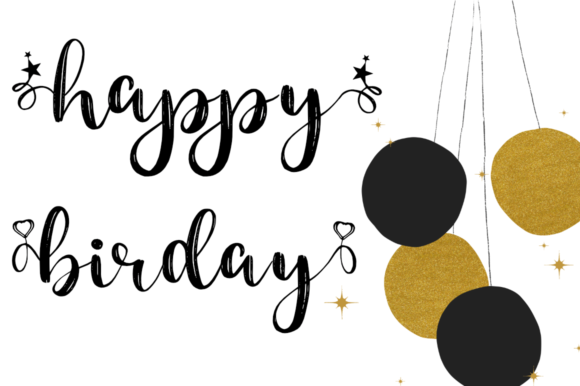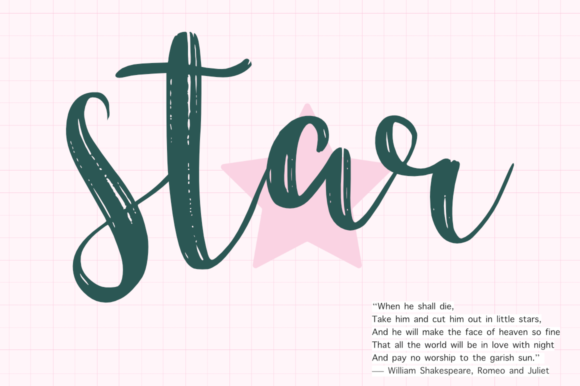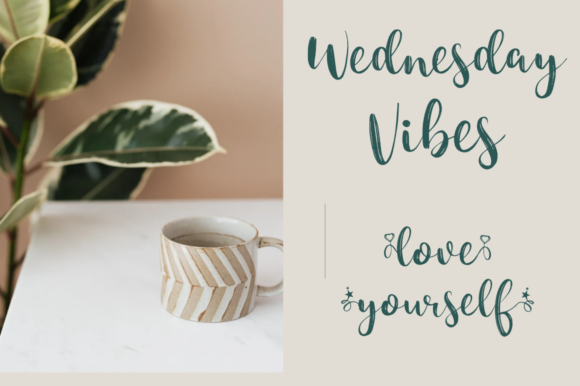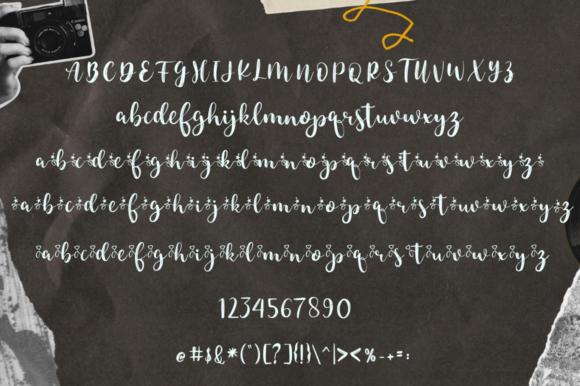
About Qashim Font
Qashim is a stylish and brushed script font. It is suitable for any projects such as: logos, branding projects, label, photography, watermark, special events, and all your other lovely projects that need a beautiful script taste.